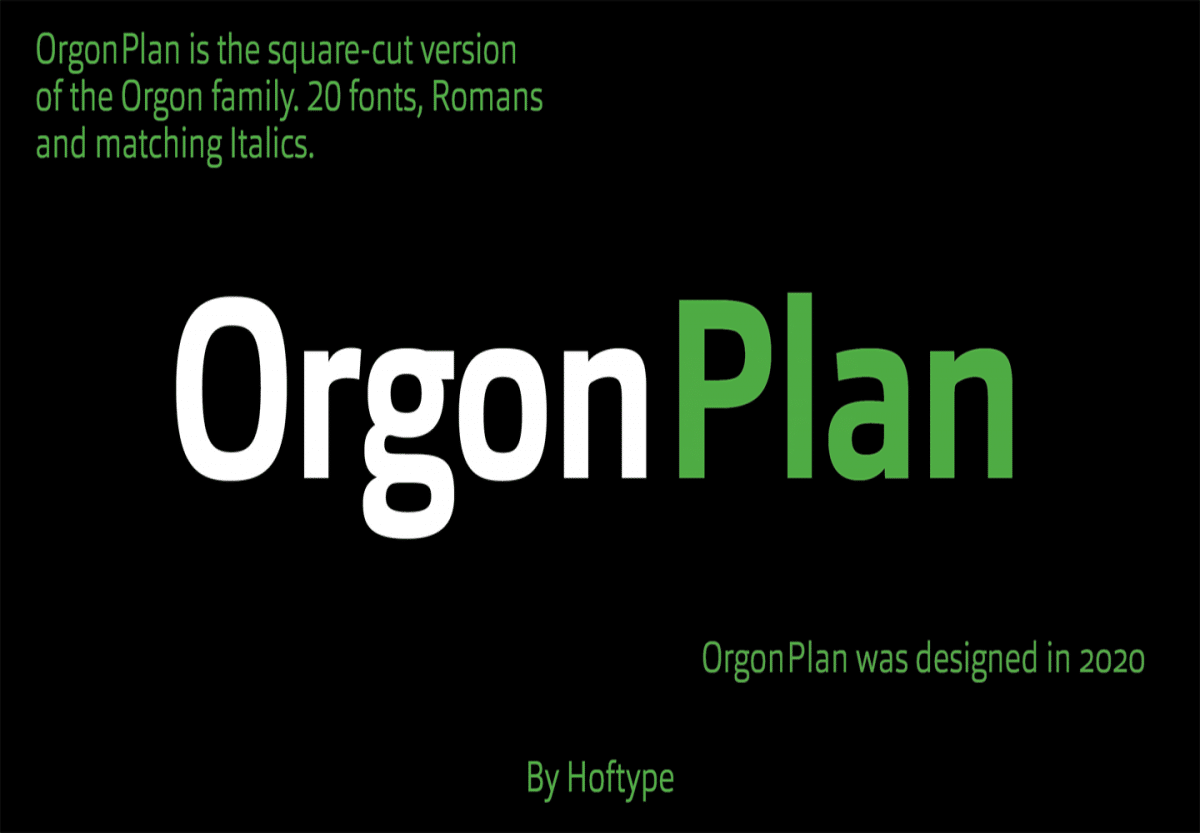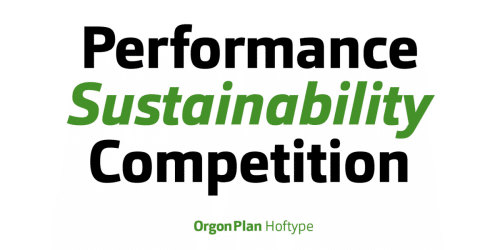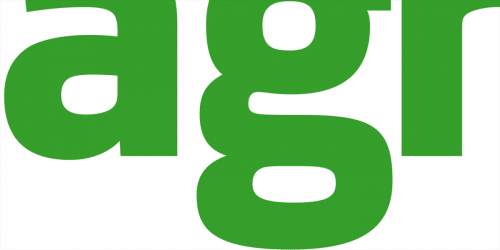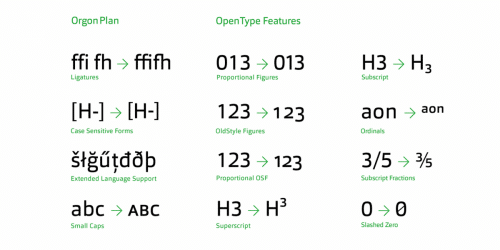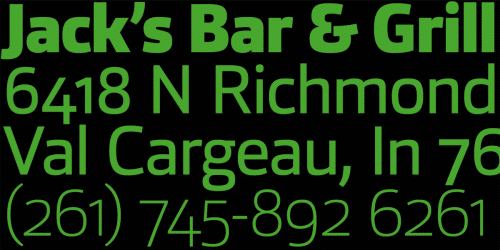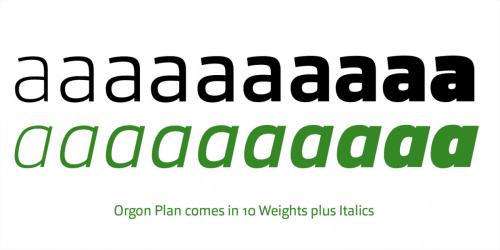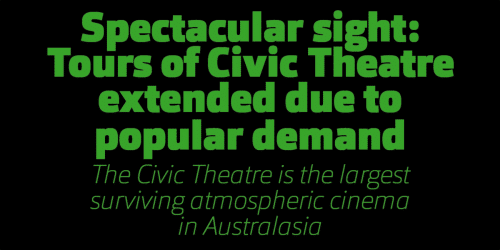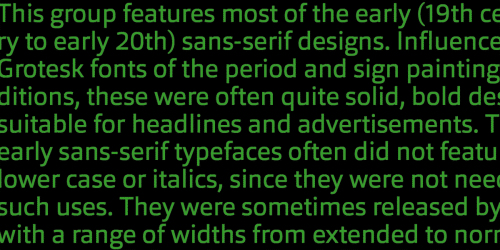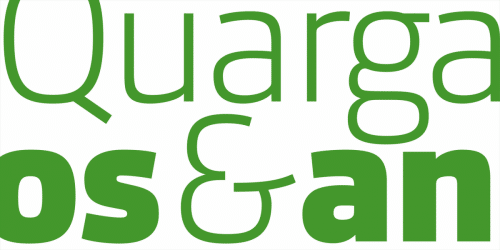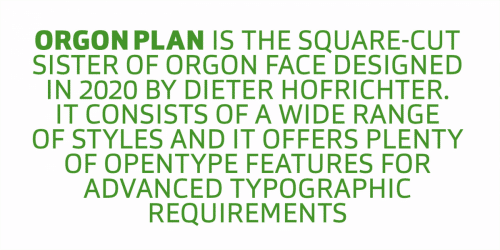
Orgon Plan is the square-cut sister of the Orgon. It represents the crispy counterpart to the successful Orgon family and was published in 2020.
Orgon Plan consists of 20 styles and is well equipped for advanced typography. It comes in OpenType format with extended language support. All weights contain small caps, ligatures, superior characters, proportional lining figures, tabular lining figures, proportional old style figures, lining old style figures, matching currency symbols, fraction- and scientific numerals and matching arrows.
- Designer: Dieter Hofrichter